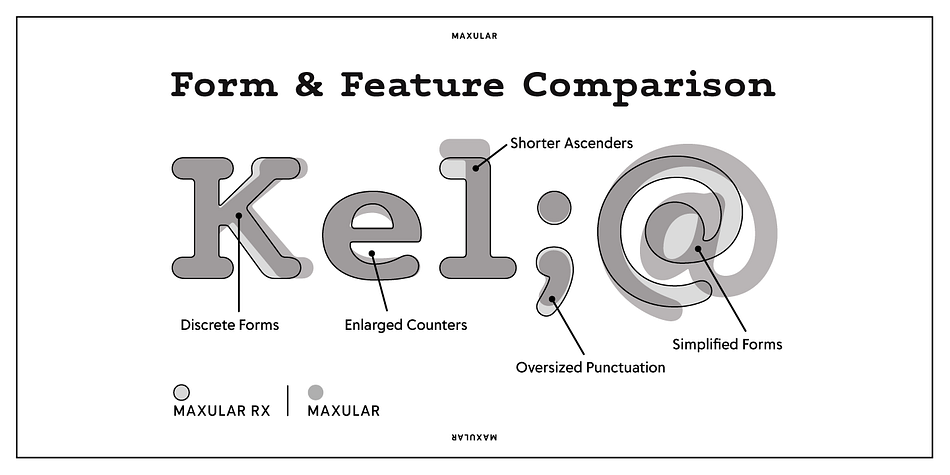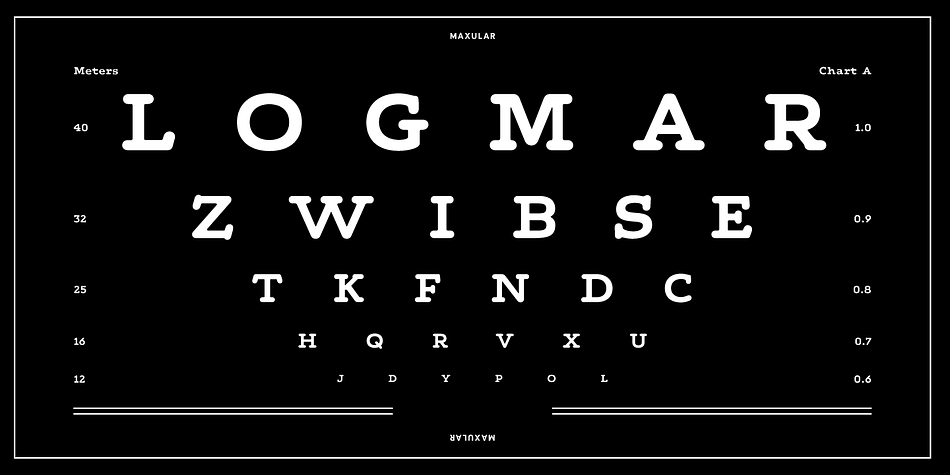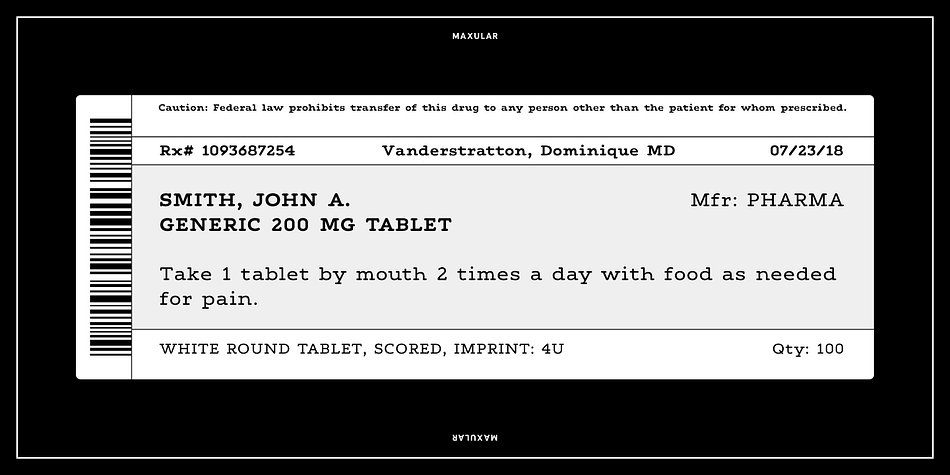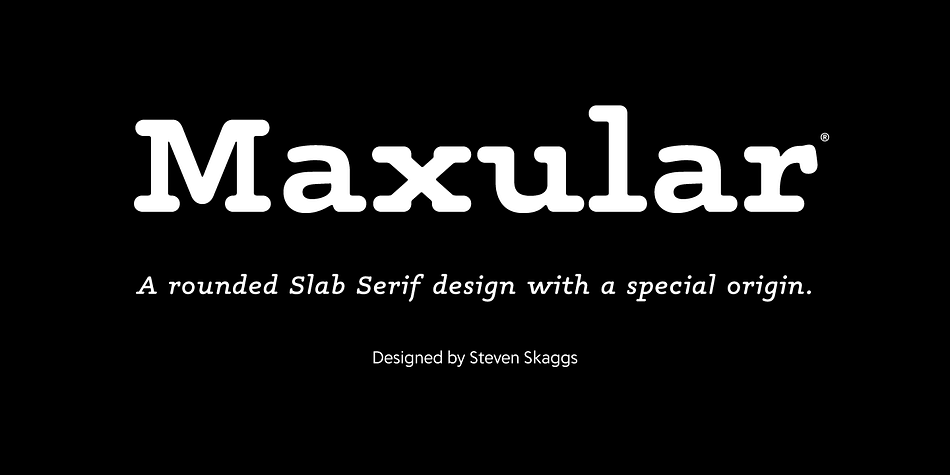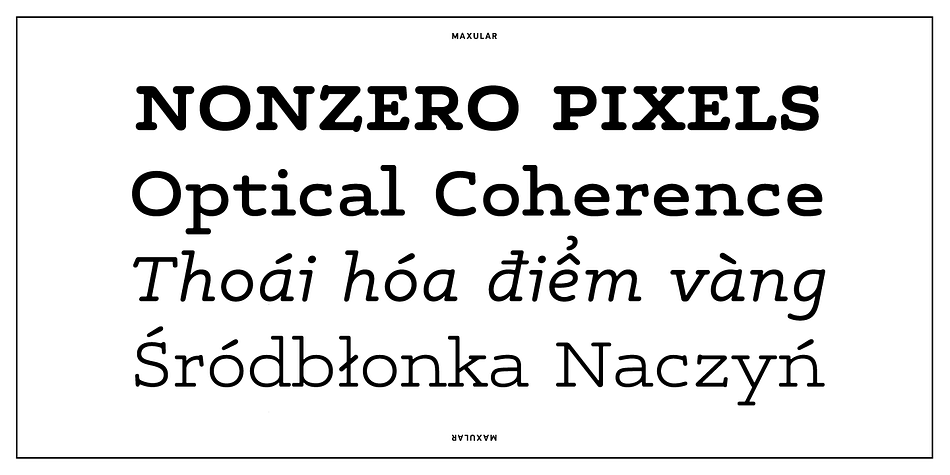
Designed by Steven Skaggs, Maxular is a slab serif and typewriter font family. This typeface has fourteen styles and was published by Delve Fonts.
Maxular is a rounded slab serif typeface by award winning designer, author, and educator Steven Skaggs. It is based his design for Maxular Rx, the first typeface expressly designed to address visual distortions caused by Macular Degeneration (MD).
For those with MD, serifs aid in separating one letter from another and corners are rounded to avoid distortion effects. The wide letterforms and conventional shapes keep the reading speed and comfort level high, even at very small sizes. A large x-height helps the font body appear larger to the eye. Inter-letter and word spacing is more open and greater line spacing is built-in, to prevent overcrowding in the vertical dimension even in apps and on devices that do not allow for increased line space.
Understanding that the special features of Maxular Rx may be distracting for normal-sighted readers, Skaggs re-drew many glyphs and created companion italics For Maxular to complete a versatile family of twelve fonts better for general use.
Every font in the Maxular family has a character set of over 700 glyphs, with support for 220 languages including Czech, Polish, Turkish, and Vietnamese. It also features a useful set of eight arrows in each font and a handful of fun alternate glyphs in the italics.